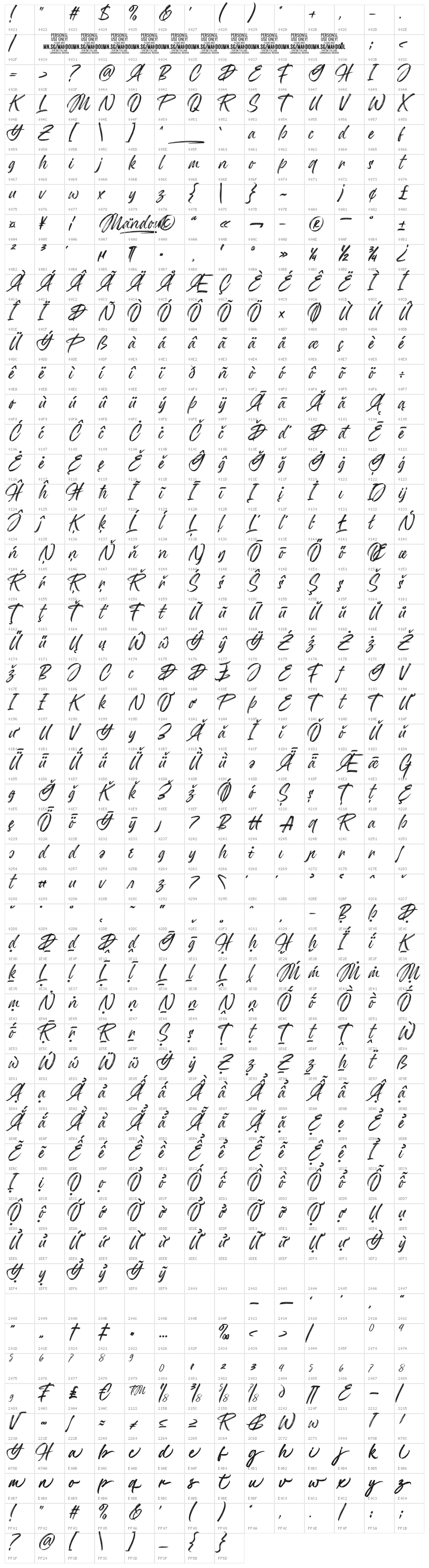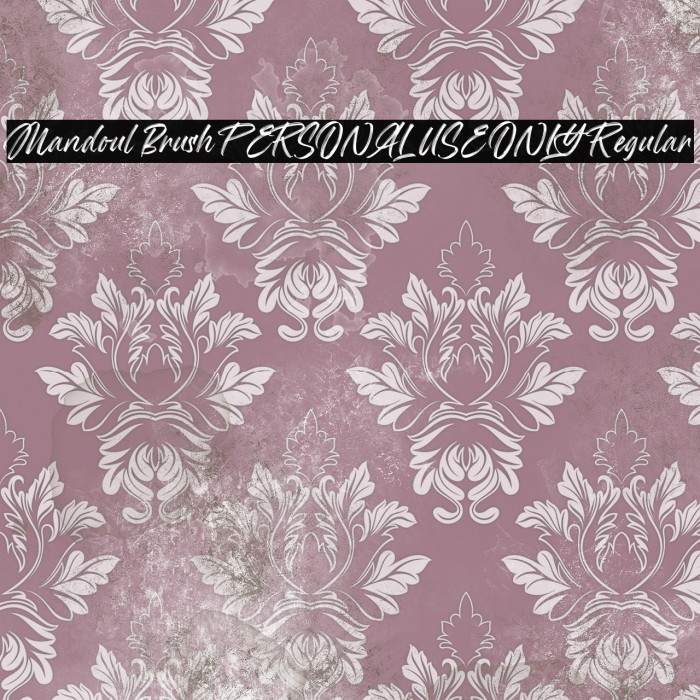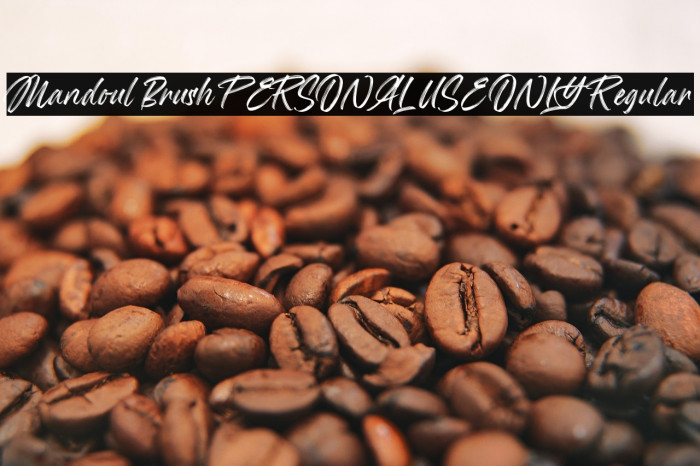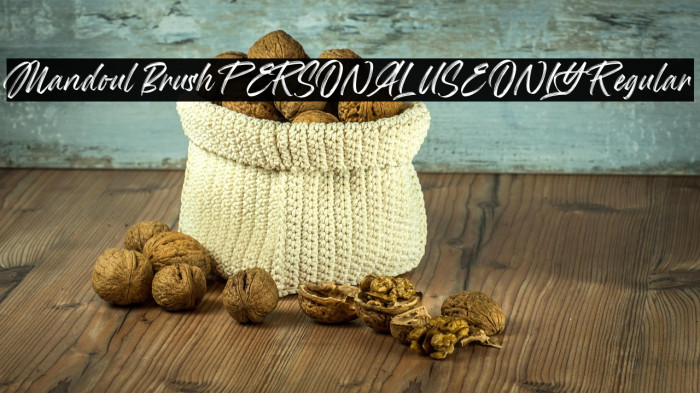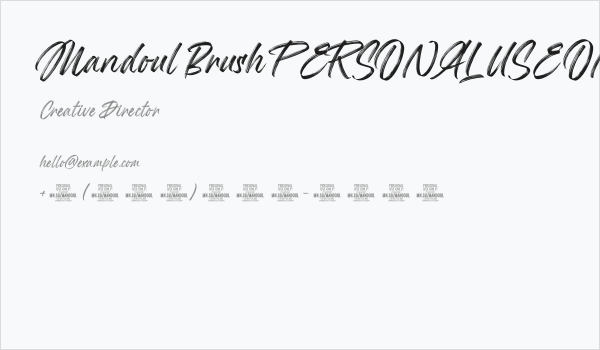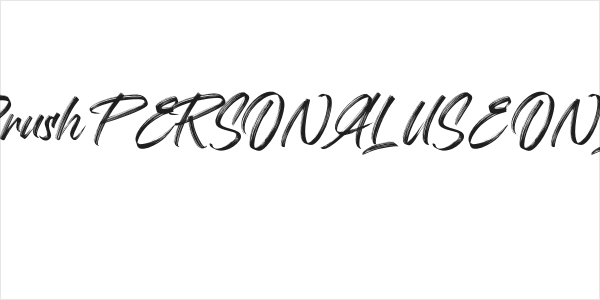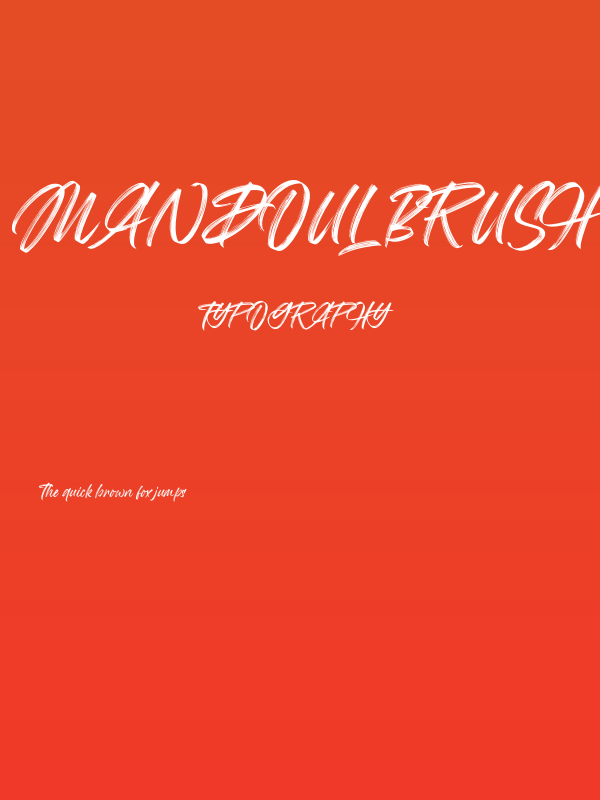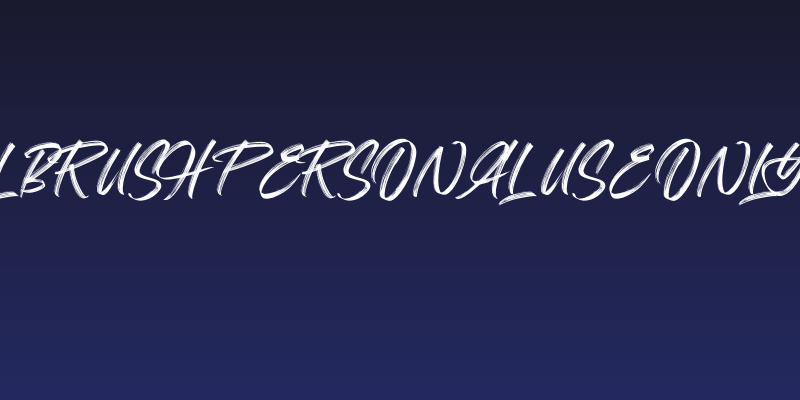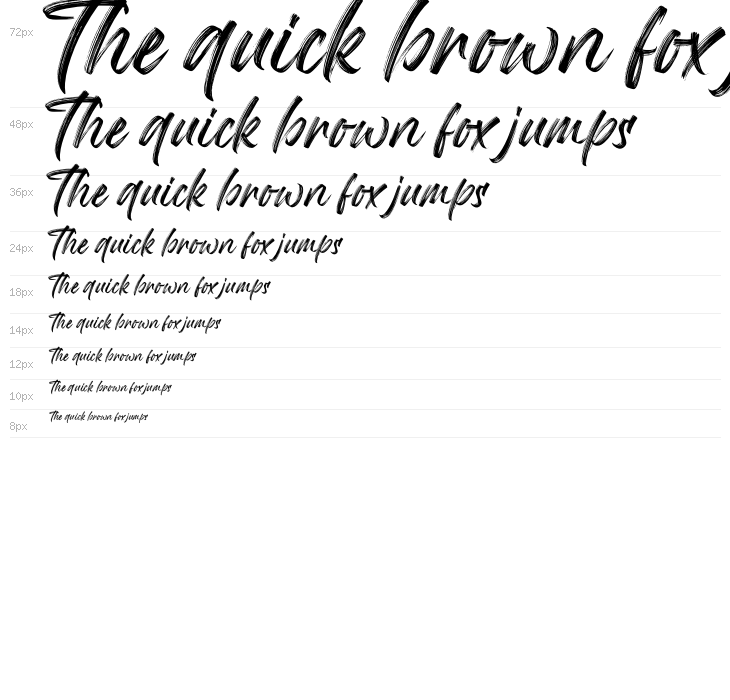
Mandoul Brush PERSONAL USE ONLY Regular Font
Mandoul Brush PERSONAL USE ONLY Regular Description
This font features a dynamic and expressive brush style, characterized by its fluid and energetic strokes. The letters exhibit a natural, hand-painted appearance with varying thickness, giving it a lively and artistic feel. The uppercase and lowercase letters maintain a consistent flow, while the numbers and special characters are crafted with the same brush-like texture. This font's design is ideal for projects that require a personal and creative touch, capturing attention with its bold and artistic flair.
| Proposed Projects | Ideal for branding, posters, invitations, and artistic projects that require a personal and creative touch. |